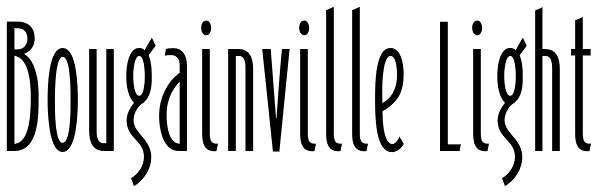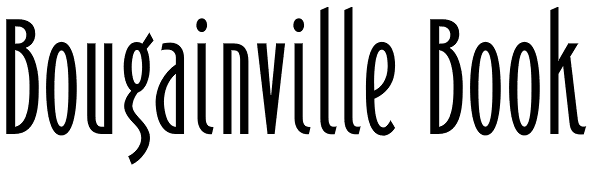
Bougainville
Bougainville was inspired by many of my favorites and has been on the drawing board in excess of ten years. Only this year I decided to expand the original 1994 design to include other weight variants. The quirky Binner Gothic-inspired high axis and...
Bougainville Light
Bougainville Heavy
Bougainville SemiBold
Bougainville Book